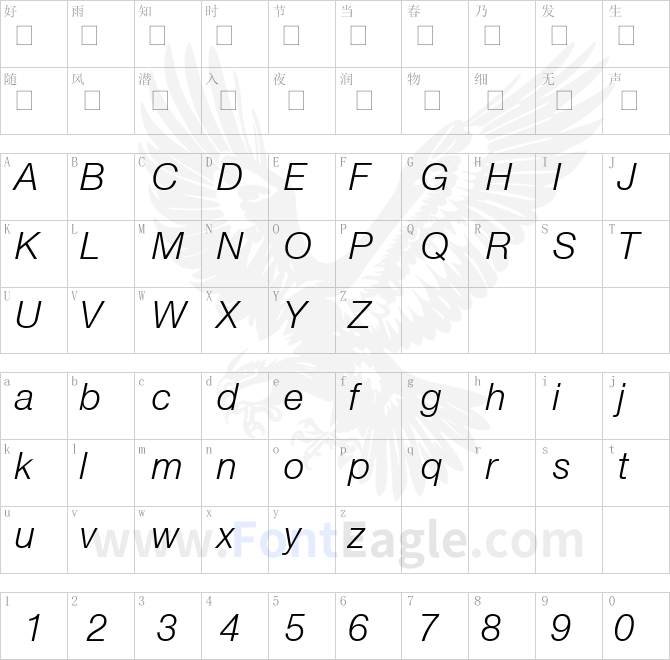
- Font name:HelveticaNeue LT 45 Light
- Font Subfamily ID:Linotype Library GmbH: Helvetica LT 46 Light Italic: 2002
- Font Full Name:Helvetica LT 46 Light Italic